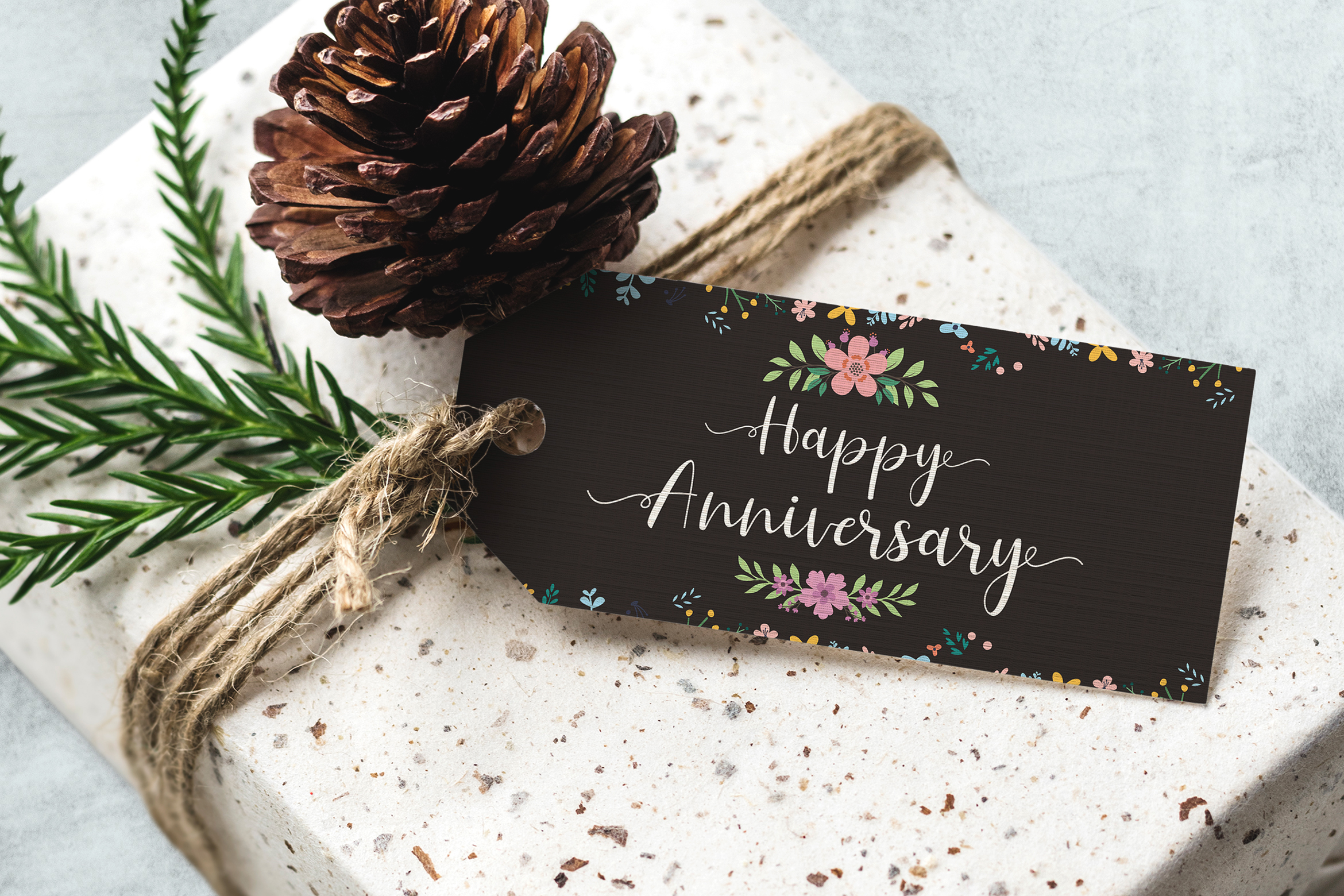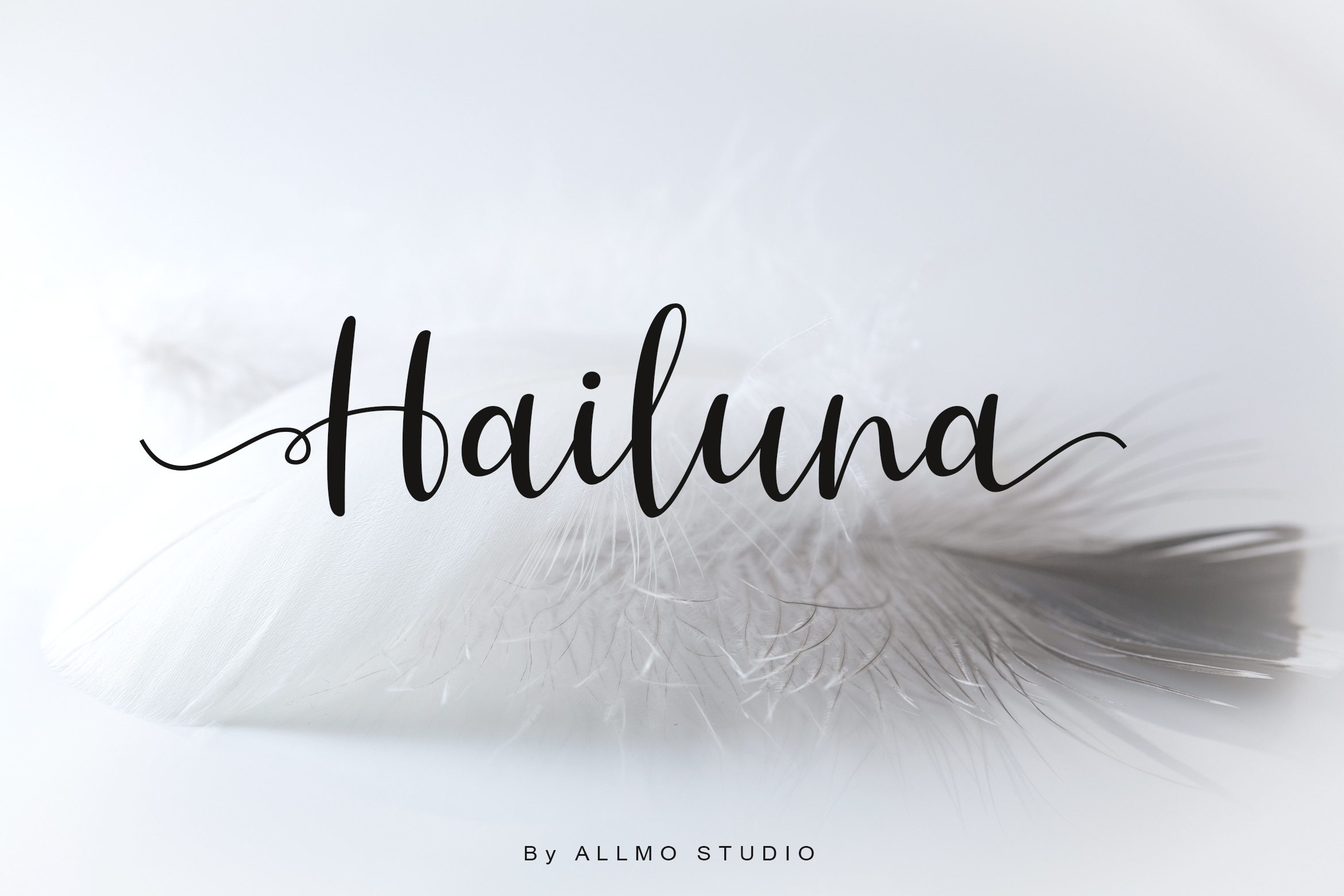
Hailuna Script Font
Introducing
Hailuna Script
Hailuna Script a new fancy & modern script with a handmade calligraphy style, decorative characters and a dancing baseline! So beautiful on invitation like greeting cards, branding materials, business cards, quotes, posters, and more!!
Hailuna Script come with 280 glyphs. The alternative characters were divided into several Open Type features such as Swash, Stylistic Sets, Stylistic Alternates. The Open Type features can be accessed by using Open Type savvy programs such as Adobe Illustrator, Adobe InDesign, Adobe Photoshop Corel Draw X version.